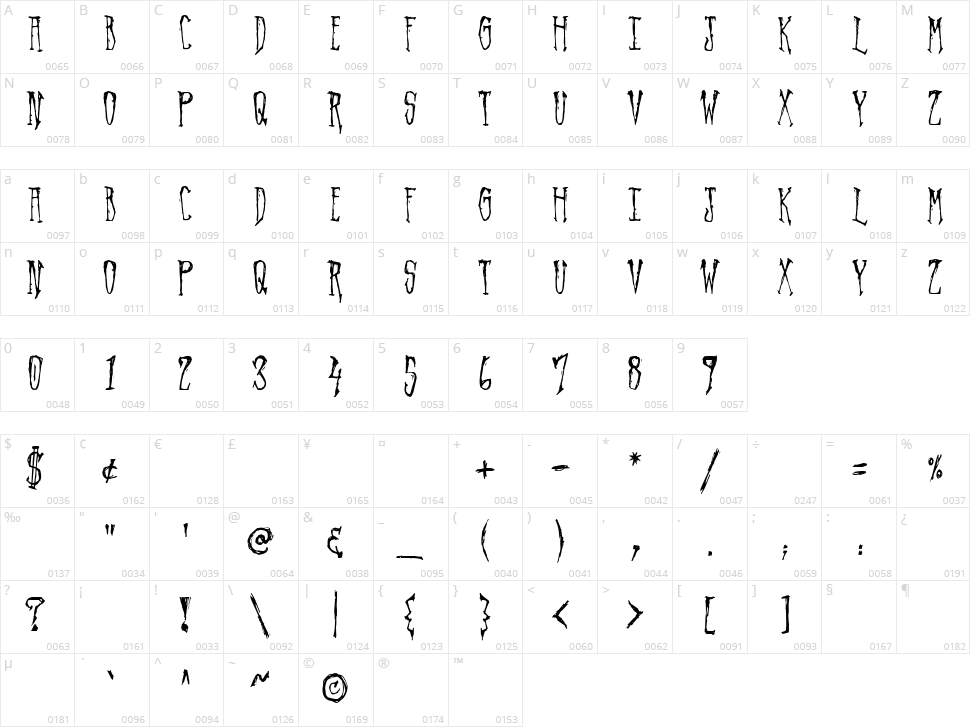
Arvigo
ARVIGO
A TrueType Font by S. John Ross
Eagle-eyed regulars to the Fontworks may recognize the word "Arvigo;" it's in the sample graphic for Hultog, one of my very first fonts. Like that one and a couple of others, the inspiration comes from my long-running FRP campaign (I've been developing the same setting now since my teenage years, so making references to it just feels natural). Arvigo is, as you might guess from his new font, a rather unpleasant character - a shifty, machiavellian underworld figure lacking ethics, sympathy and, as it happens, his nose.
Arvigo is a full-keyboard set with a few of the usual extras, based on hand-drawn samples I doodled at Whataburger last night over a diet Dr. Pepper. Arvigo himself would consider it pretty.